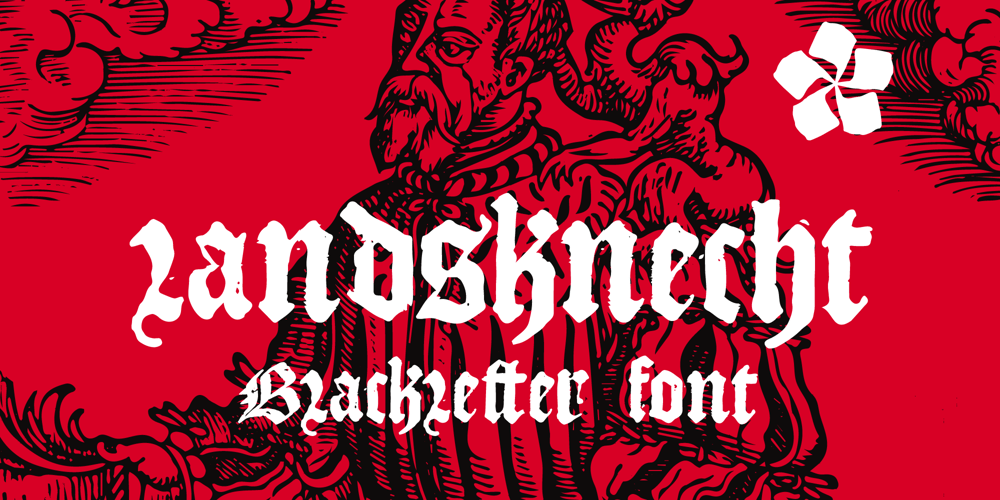
Landsknecht
Landsknecht font
Landsknecht Font Family was designed by Roman Korolev and published by Kaer. Landsknecht contains 1 styles and family package options. Hey! I’m happy to introduce to you my new font.Landsknecht is a blackletter style calligraphy font. Do you need to design perfect alcohol labels, retro style logos, music album covers, circus posters, luxury packaging identity, etc.? If you want dark and strong medieval style concepts, please try it.You’ll get:* Uppercase and lowercase* Multilingual support* Numbers* Symbols* Punctuation* LigaturesPlease feel free to request any help you need.Best, Roman.